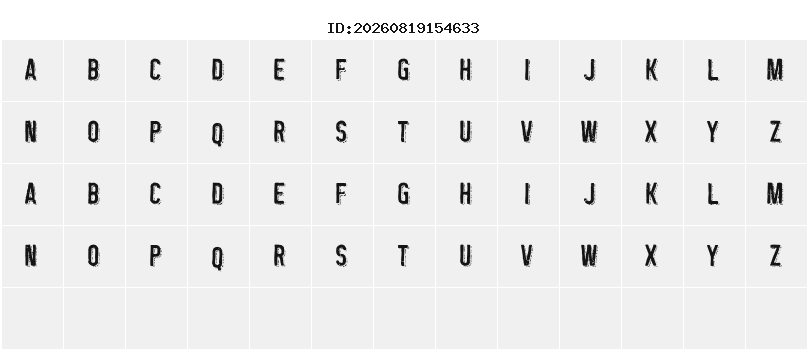
Silent Broadcast Preview
• Font Name: Silent Broadcast
• Full Font Name: Silent Broadcast
• Designer: Fred - 28fonts
• Manufacturer: 28fonts
About Silent Broadcast.ttf
Silent Broadcast.ttf is a modern, elegant sans-serif font designed for ultimate readability and visual harmony. Perfect for branding, headlines, web design, and print materials.